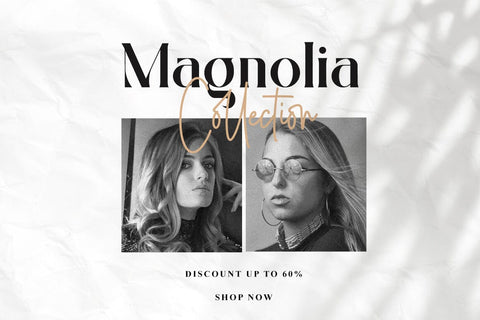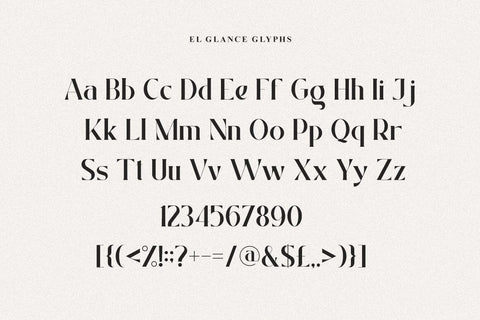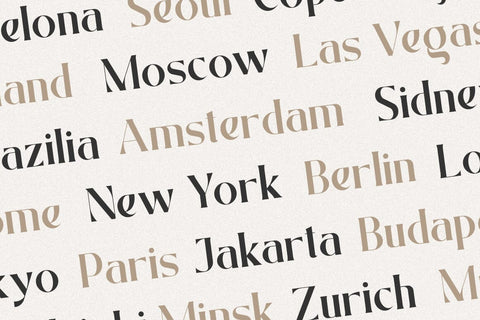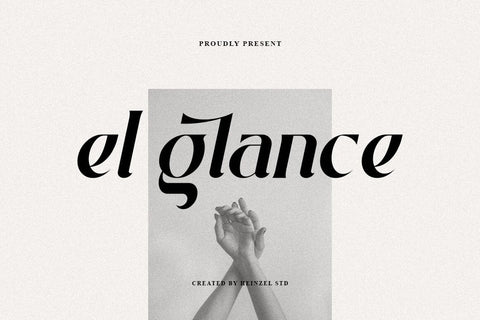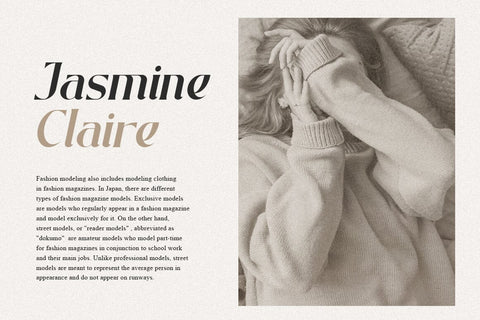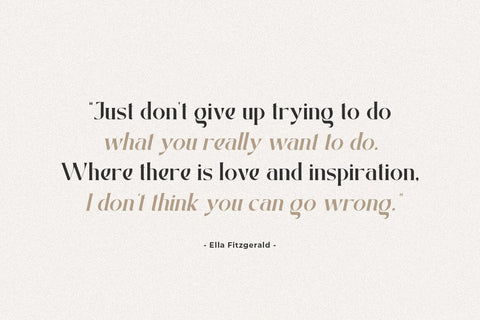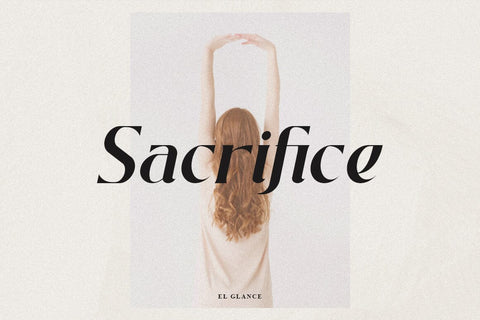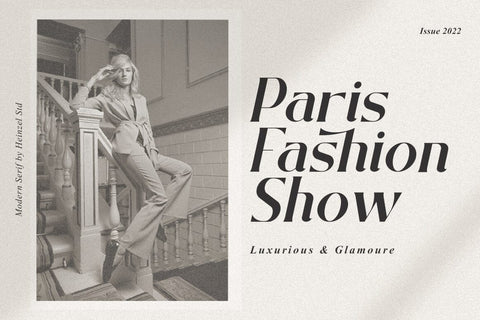
El Glance Modern Serif Font
El Glance is an elegant and modern serif font. Fall for its ravishing style and use it to create gorgeous wedding invitations, logos, branding, headline, beautiful stationary art, eye-catching social media posts, website, and much more! This font is PUA encoded which means you can access all of the amazing glyphs with ease!
- El Glance Regular, and Italic version, sans serif font,
- Numerals and more punctuation
- Multilingual support for various languages
This character set supports the following 21 languages: Afrikaans, Basque, Breton, Catalan, Danish, Dutch, English, Finnish, French, Gaelic (Irish, Scots), German, Icelandic, Indonesian, Irish, Italian, Norwegian, Portuguese, Saami (Southern), Spanish, Swahili, Swedish.